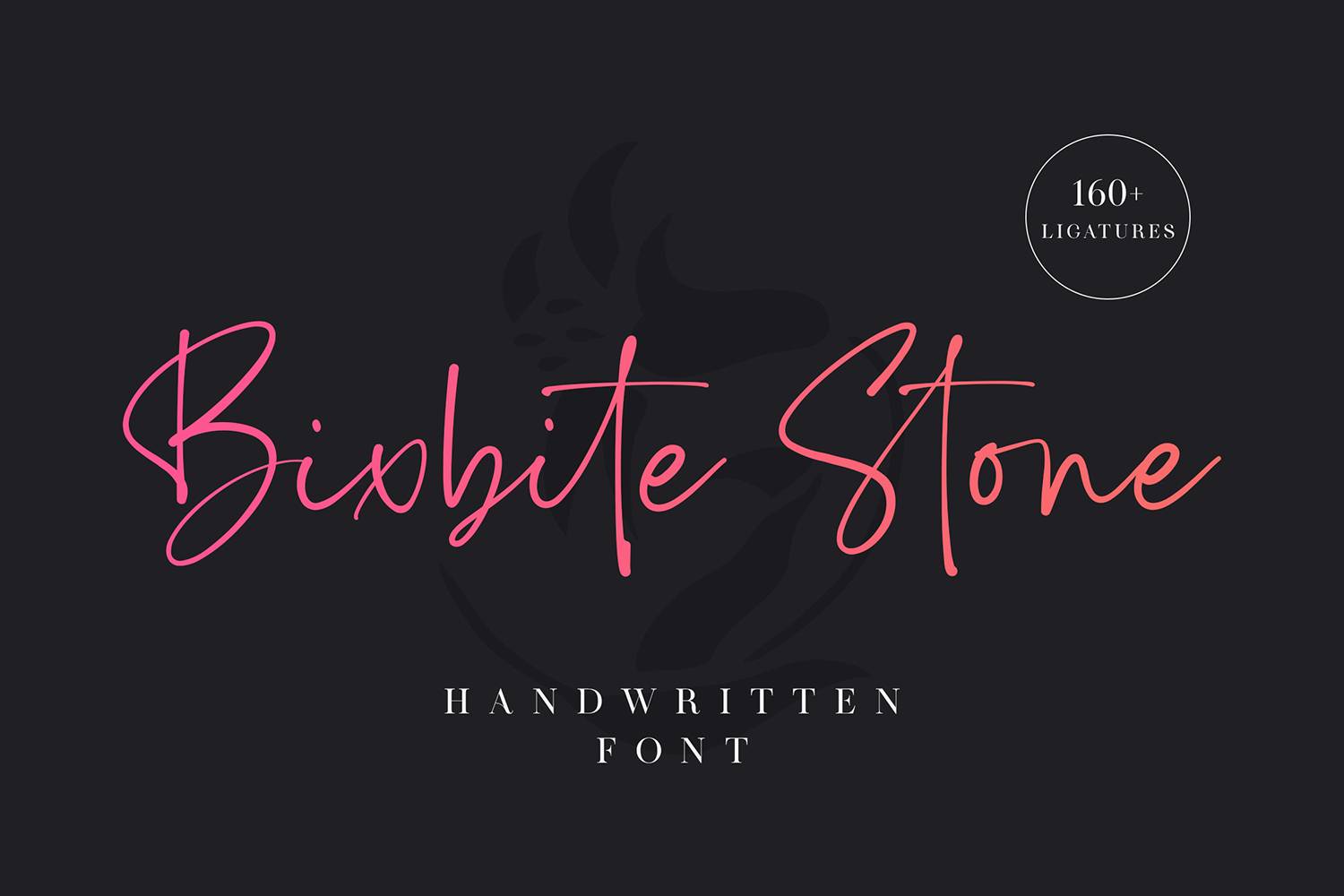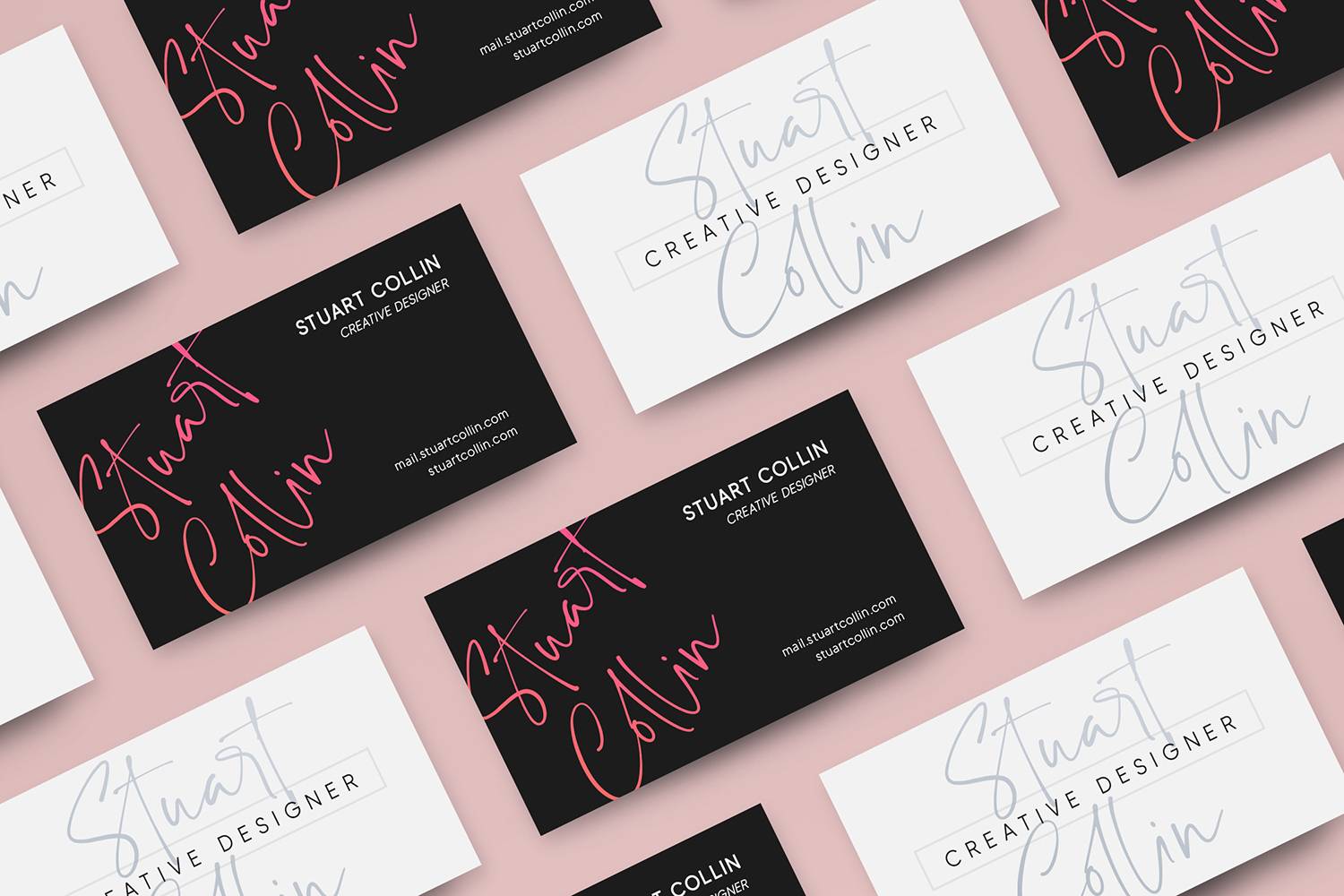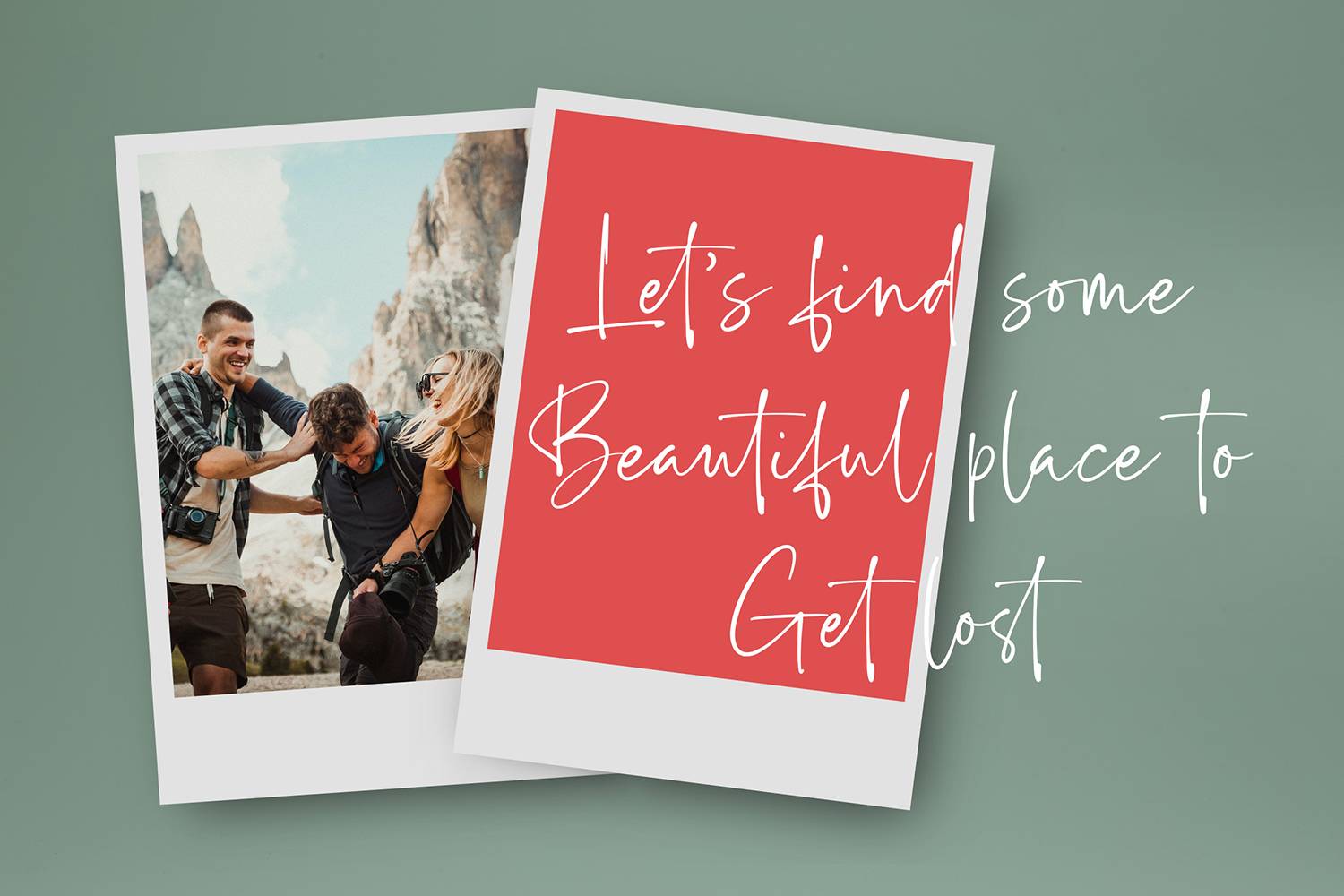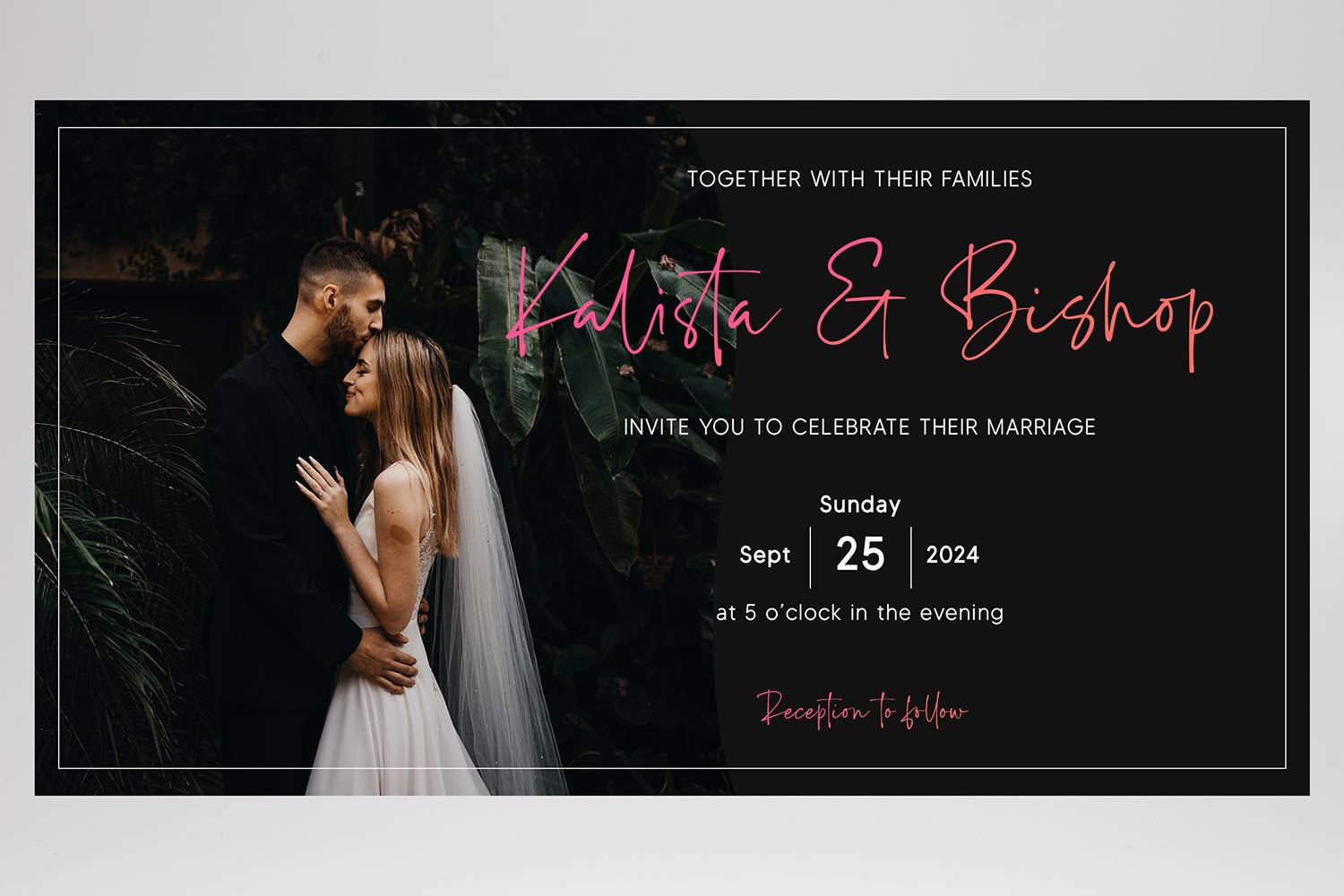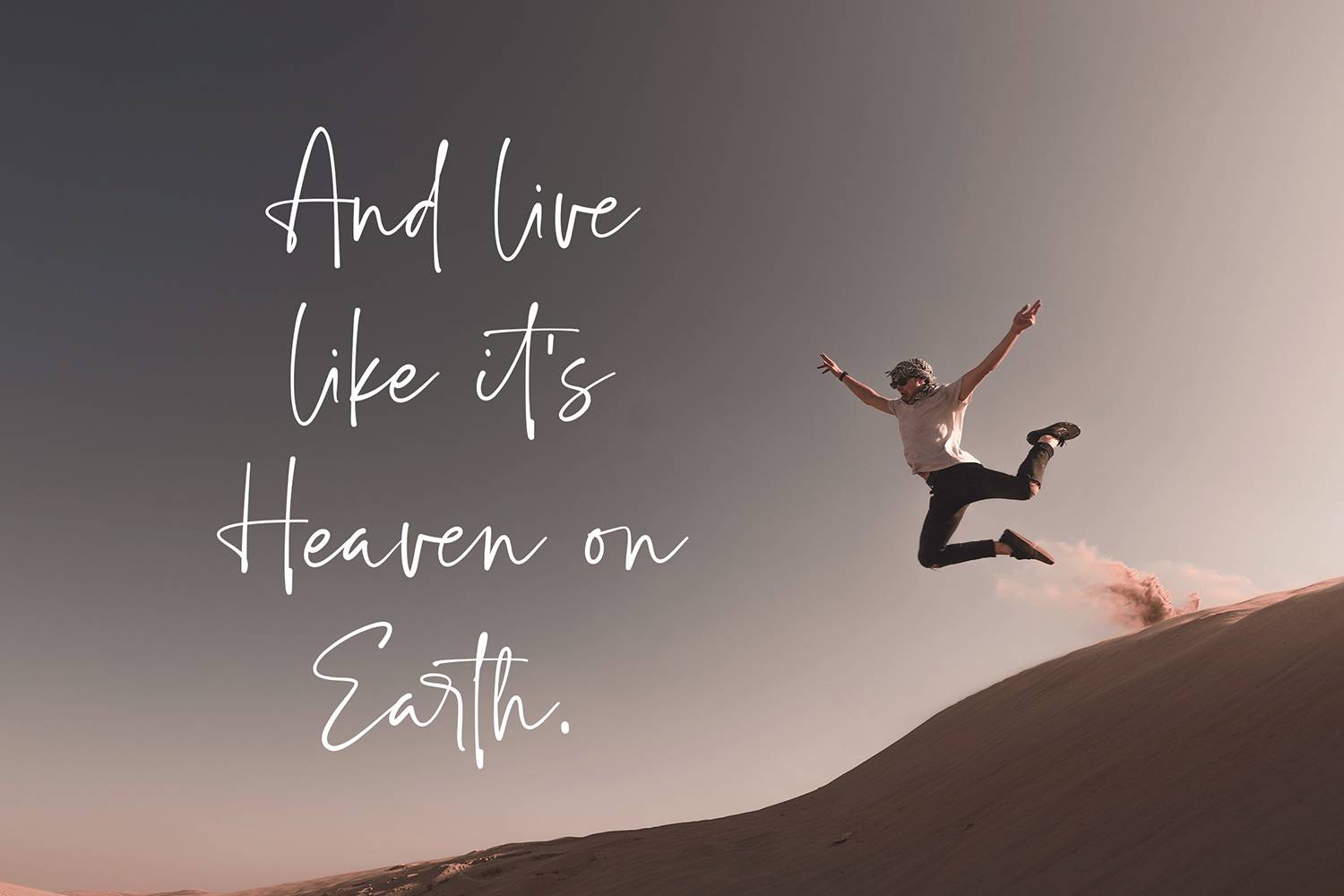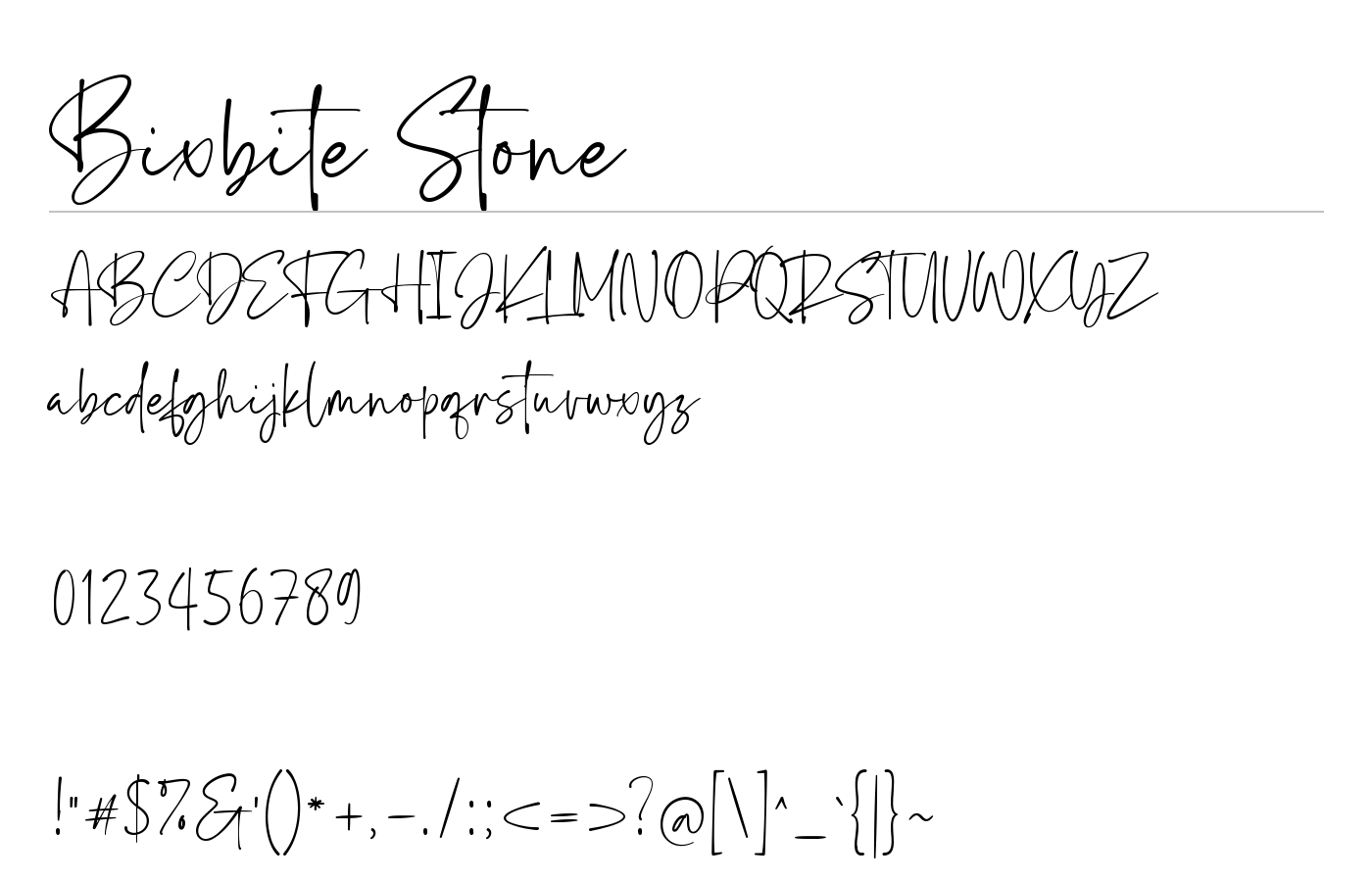
Bixbite Stone is a delicate, handwritten script font with a light, airy feel created by its thin strokes and tall x-height. Its playful yet elegant lines convey a casual sophistication, making it ideal for creative branding, invitations, and stylish editorial work where a personal, artistic touch is desired. This font works best in headlines or short texts where its unique character and friendly style can shine.
Bixbite Stone Font
About Bixbite Stone Font
| Font family | Bixbite Stone Font |
| Release date | 2022-06-28 |
| Designer | Dwi Ahidian |